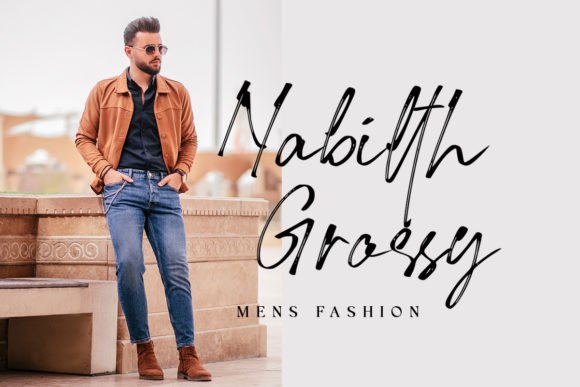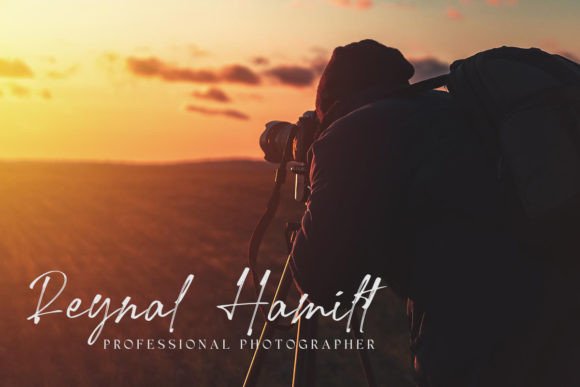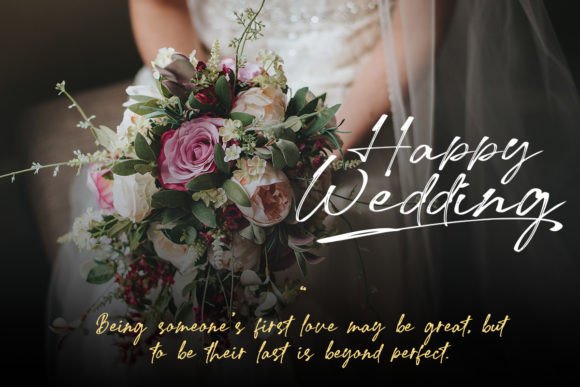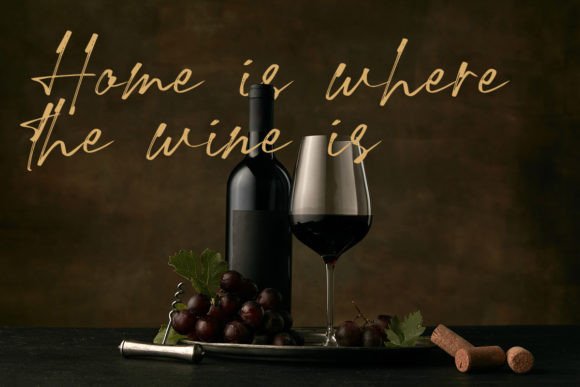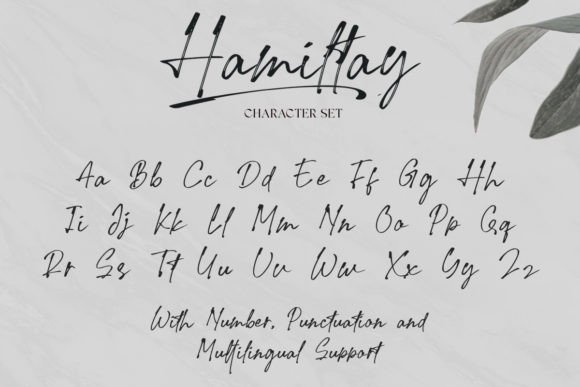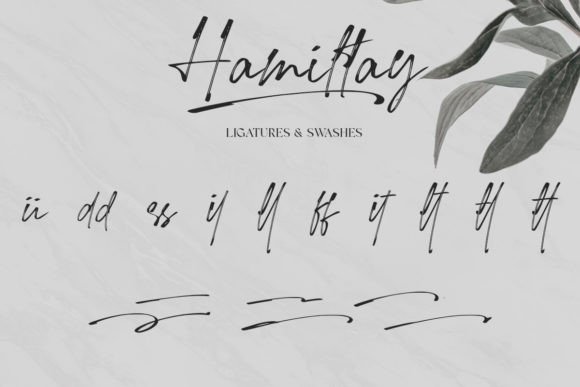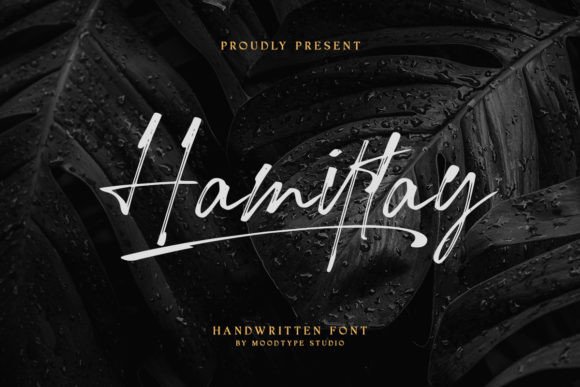
Hamiltay Font: Elevate Your Design with a Brush Handwritten Style
Are you looking for a font that adds a touch of elegance and sophistication to your design projects? Look no further than Hamiltay, a beautiful brush handwritten font that is perfect for a wide range of applications. In this article, we’ll explore the features and benefits of Hamiltay, and show you how to make the most of this versatile font.
What is Hamiltay Font?
Hamiltay is a brush handwritten font that is designed to mimic the look and feel of handwritten text. With its flowing strokes and elegant lettering, Hamiltay is perfect for adding a personal touch to your designs. Whether you’re working on a branding project, a wedding invitation, or a food promotion, Hamiltay is the perfect choice.
Features of Hamiltay Font
Hamiltay font comes with a range of features that make it an ideal choice for designers and crafters. Some of the key features include:
- Brush Handwritten Style: Hamiltay has a unique brush handwritten style that gives it a personal and elegant feel.
- High-Quality Letters: The font features high-quality letters that are crisp and clear, making it perfect for use in a variety of design projects.
- Multilingual Support: Hamiltay supports multiple languages, making it a great choice for designers who work with clients from around the world.
- Easy to Read: The font is easy to read, even at small sizes, making it perfect for use in body text and captions.
Use Cases for Hamiltay Font
Hamiltay is a versatile font that can be used in a wide range of design projects. Here are some of the most popular use cases:
- Branding: Use Hamiltay to create a unique and memorable brand identity that stands out from the crowd.
- Fashion: Hamiltay is perfect for fashion designers who want to add a touch of elegance to their designs.
- Wedding: The font is a popular choice for wedding invitations, save-the-dates, and other wedding-related designs.
- Food Promotion: Use Hamiltay to create eye-catching food promotions, menus, and recipes.
- Invitation: Hamiltay is perfect for creating invitations for parties, events, and other special occasions.
- Packaging: The font can be used to create eye-catching packaging that stands out on store shelves.
- Merchandise: Use Hamiltay to create custom merchandise, such as t-shirts, mugs, and tote bags.
- Website Advertisement: The font can be used to create eye-catching website ads that grab the attention of visitors.
- Magazine: Hamiltay is a great choice for magazine designers who want to add a touch of elegance to their layouts.
- Logo: The font can be used to create a unique and memorable logo that represents your brand.
Tips for Using Hamiltay Font
Here are some tips for getting the most out of Hamiltay:
- Use it with a contrasting font: Pair Hamiltay with a contrasting font to create visual interest and add depth to your design.
- Experiment with colors: Hamiltay looks great in a range of colors, so don’t be afraid to experiment and find the perfect hue for your design.
- Pay attention to spacing: Make sure to leave enough space between letters and lines to create a clean and elegant look.
Hamiltay is a beautiful brush handwritten font that is perfect for designers and crafters who want to add a touch of elegance to their designs. With its flowing strokes, elegant lettering, and versatile use cases, Hamiltay is a great choice for a wide range of design projects. Whether you’re working on a branding project, a wedding invitation, or a food promotion, Hamiltay is the perfect font to elevate your design and make it stand out from the crowd.